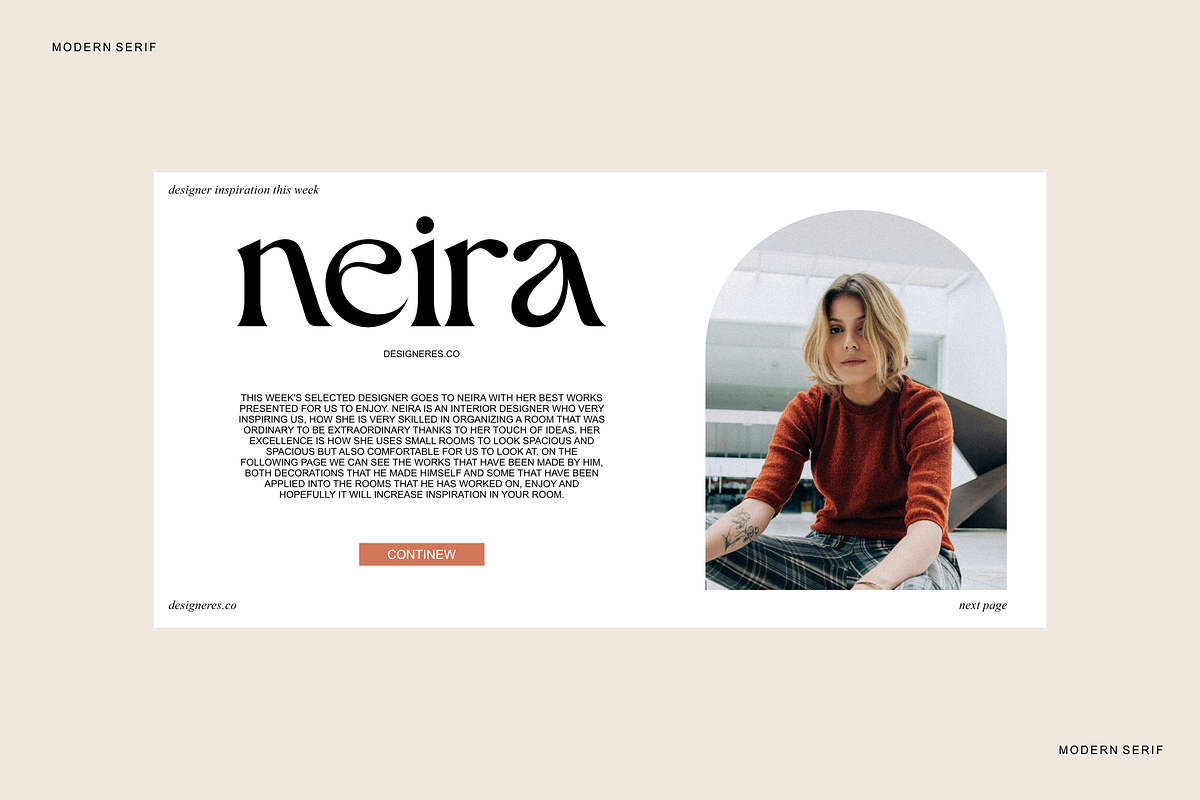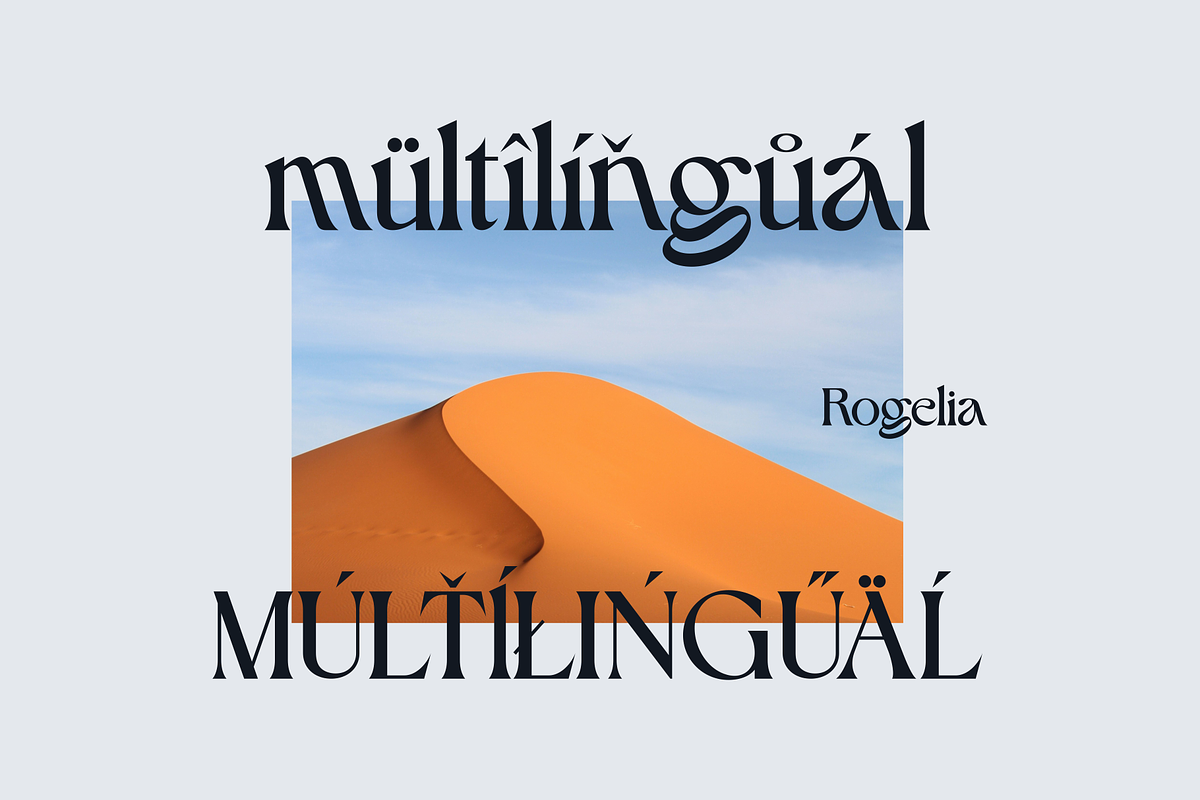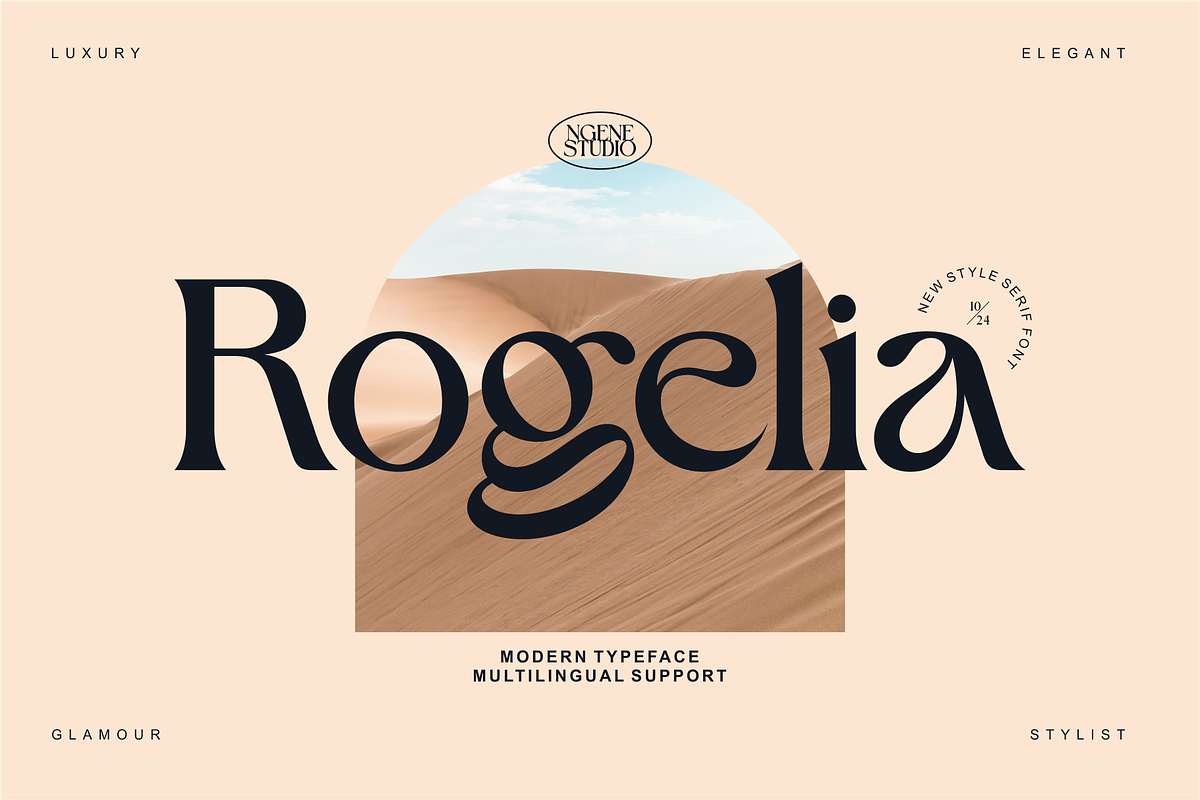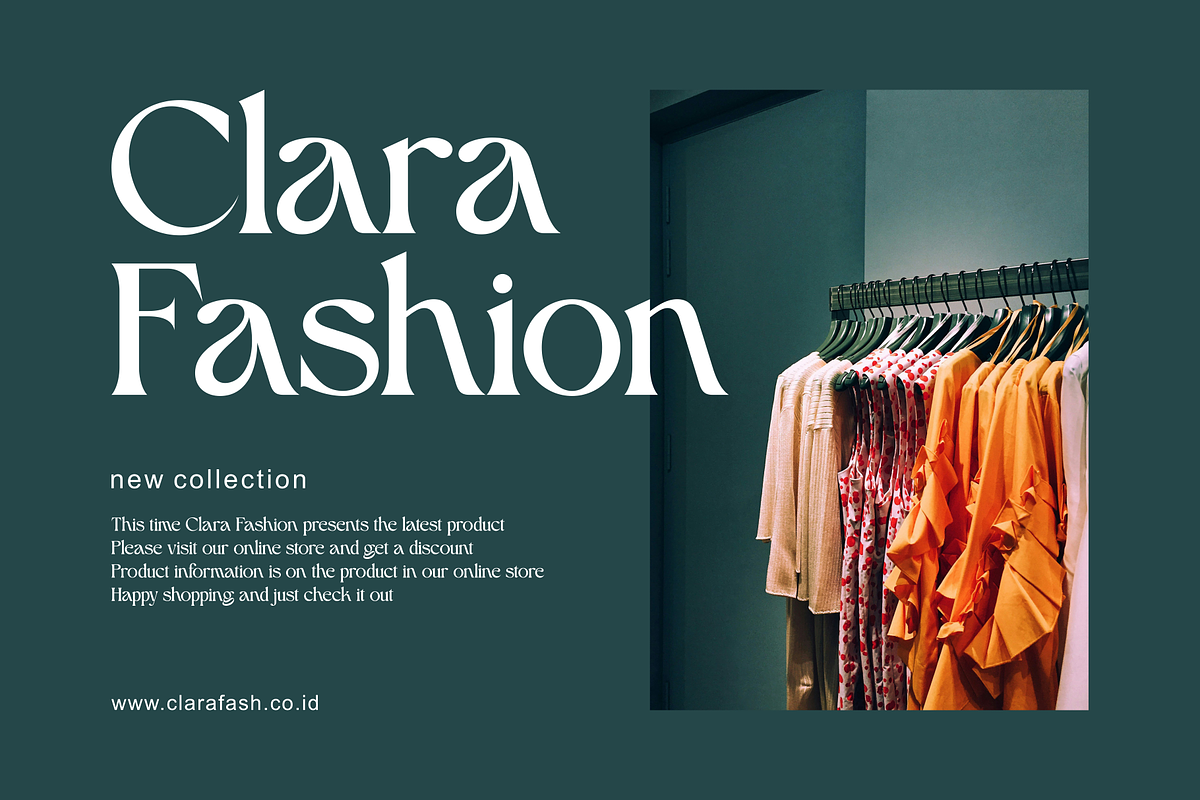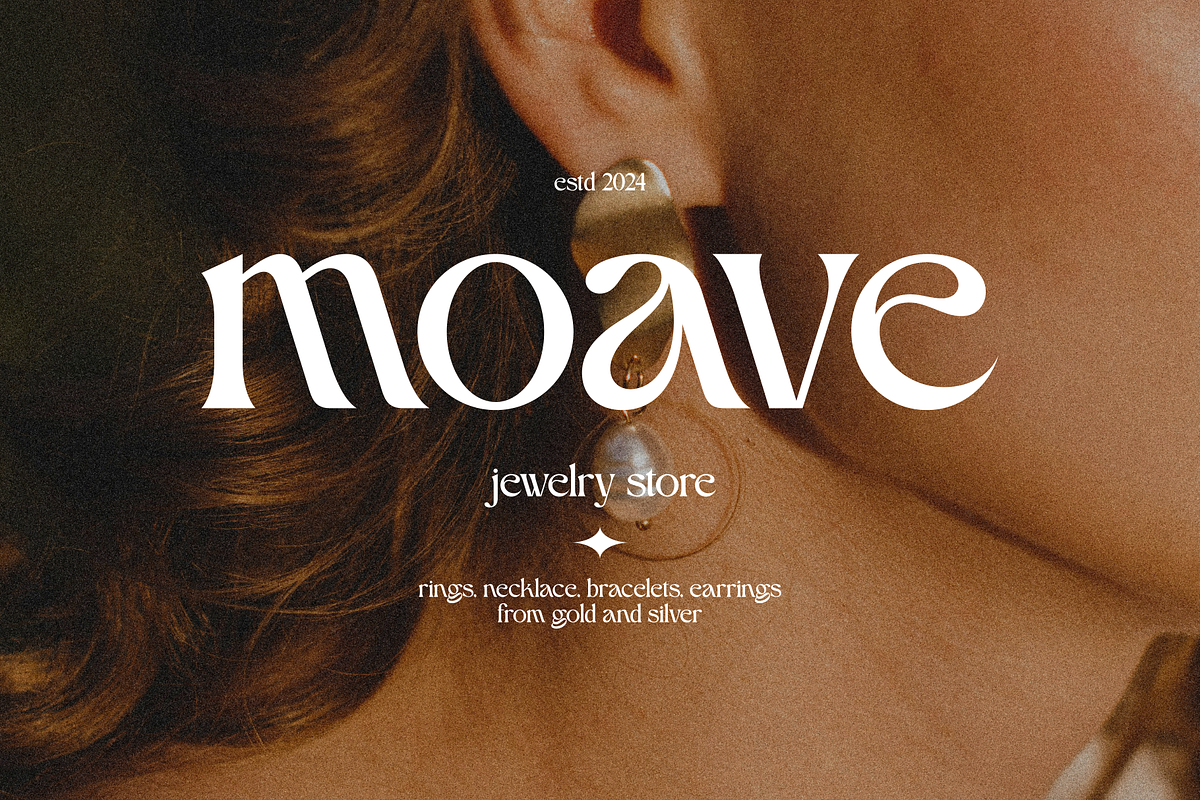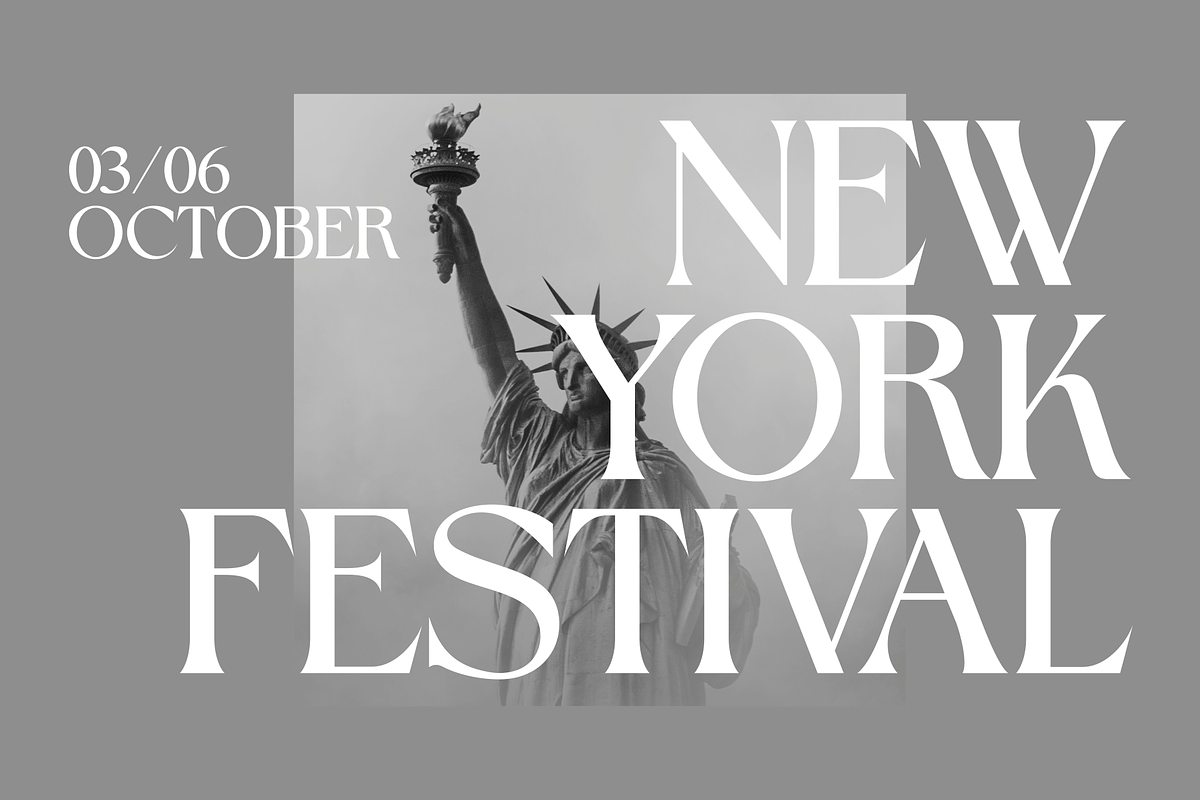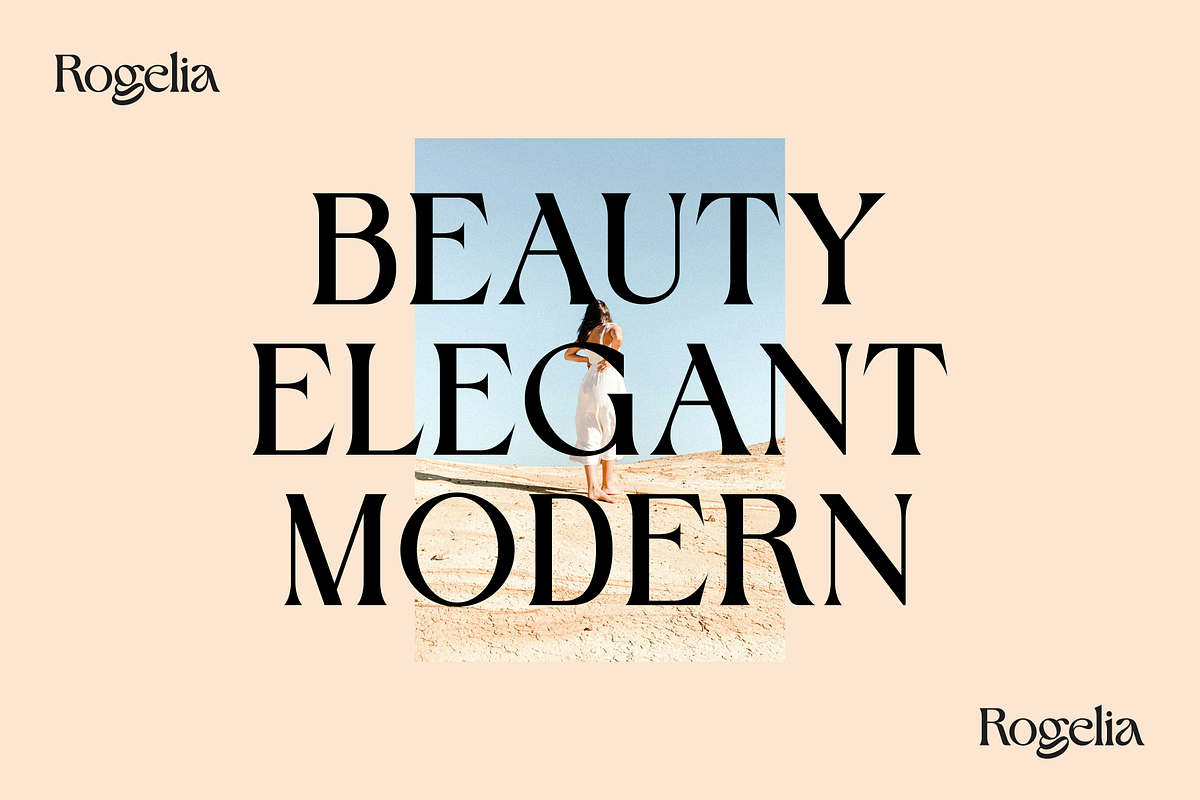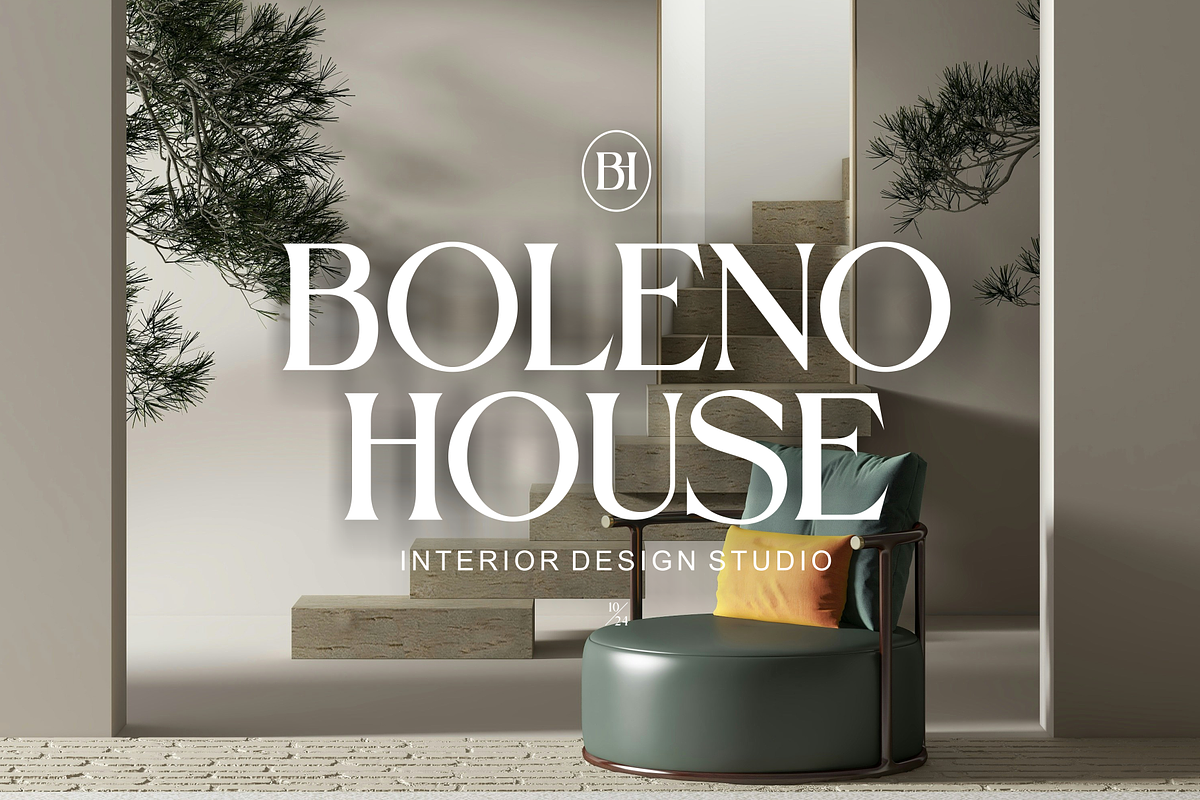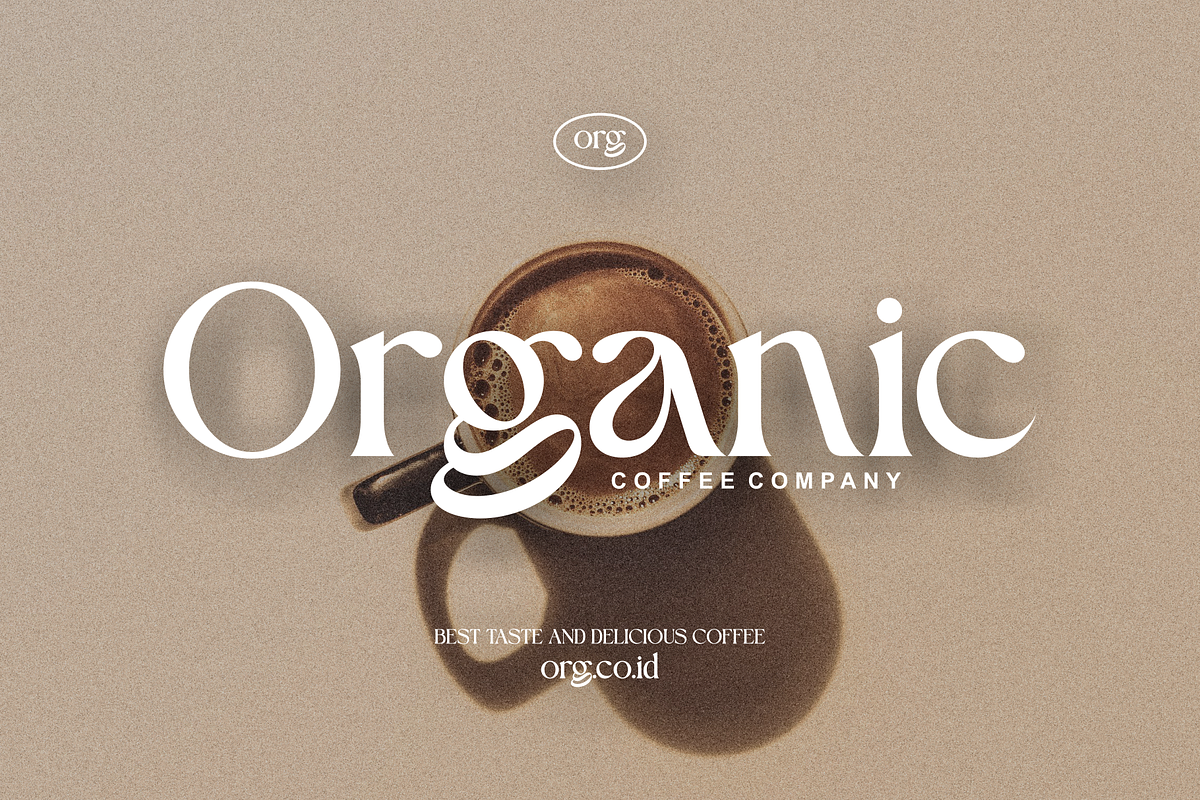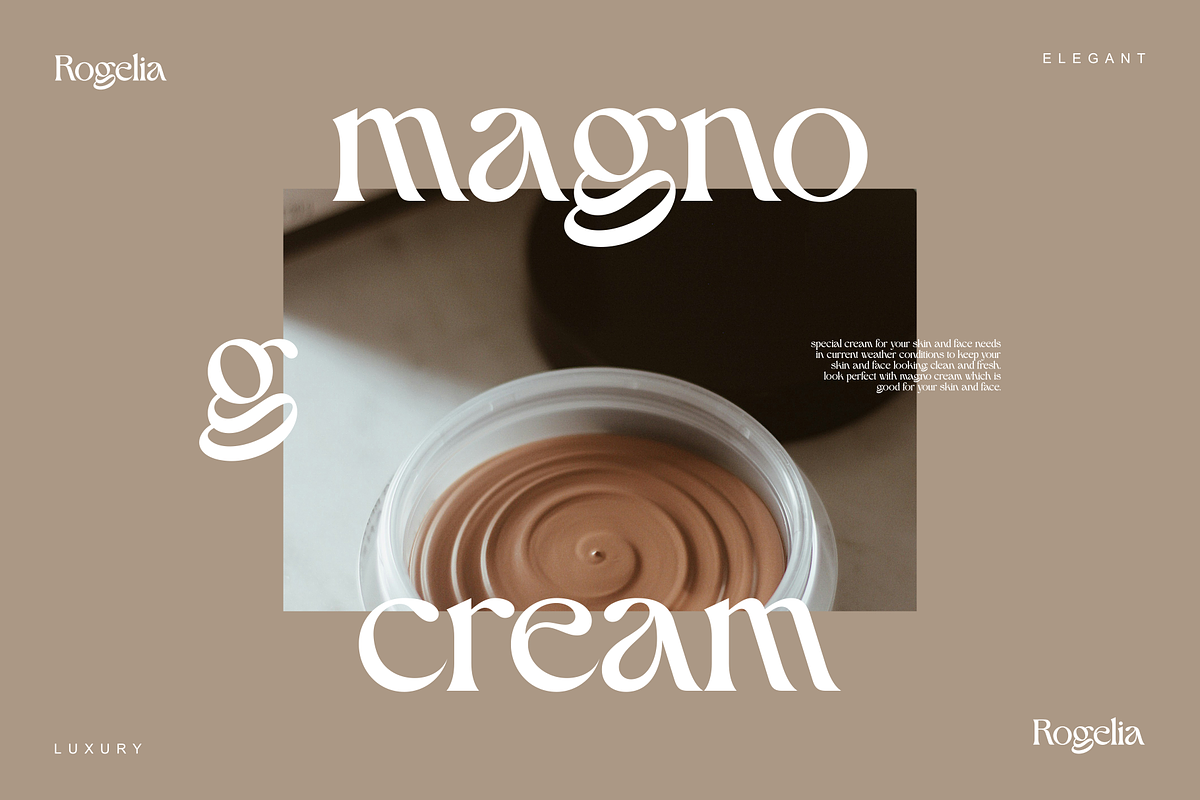
Rogelia Modern Serif
Rogelia vintage style serif font with an elegant and modern touch, this font draws from a wide variety of characters. This font has several alternatives built into it, perfect for creating logo designs, badges, web fonts, magazines and more. With a very strong font character will make your design different and more attractive. This font is also multilingual, making it easier for you to use the language you need.